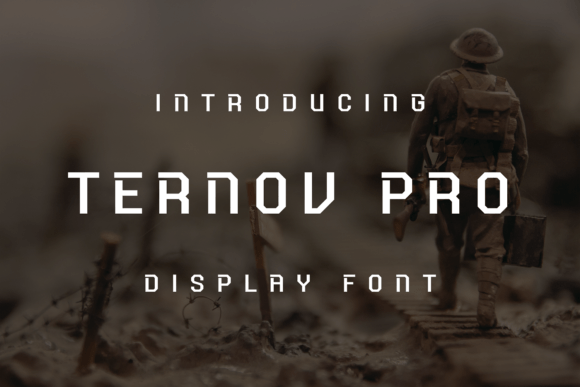
Behold Ternov Pro, a captivating display font that will unleash your creativity and transport you to a realm of boundless possibilities. This font is more than just a collection of letters; it's an artistic masterpiece, meticulously crafted to evoke emotions and leave a lasting impression on your audience.
With its bold and striking appearance, Ternov Pro commands attention and demands to be seen. Its unique letterforms, inspired by the enigmatic aura of horror posters, possess an undeniable charm that will make your designs stand out from the crowd. Whether you're creating spine-chilling movie posters, haunting book covers, or captivating social media graphics, Ternov Pro is your perfect companion.
Step into the world of Ternov Pro and let your imagination run wild. This font is a versatile chameleon, equally adept at conjuring feelings of dread, intrigue, and excitement. Its carefully designed curves and sharp angles create a dynamic tension that draws the eye and captivates the senses.
Unlock the full potential of your creative vision with Ternov Pro. It's a font that not only elevates your designs but also enhances your storytelling abilities. Let the haunting beauty of Ternov Pro transport your audience to another dimension, where fear and fascination intertwine to create an unforgettable experience.